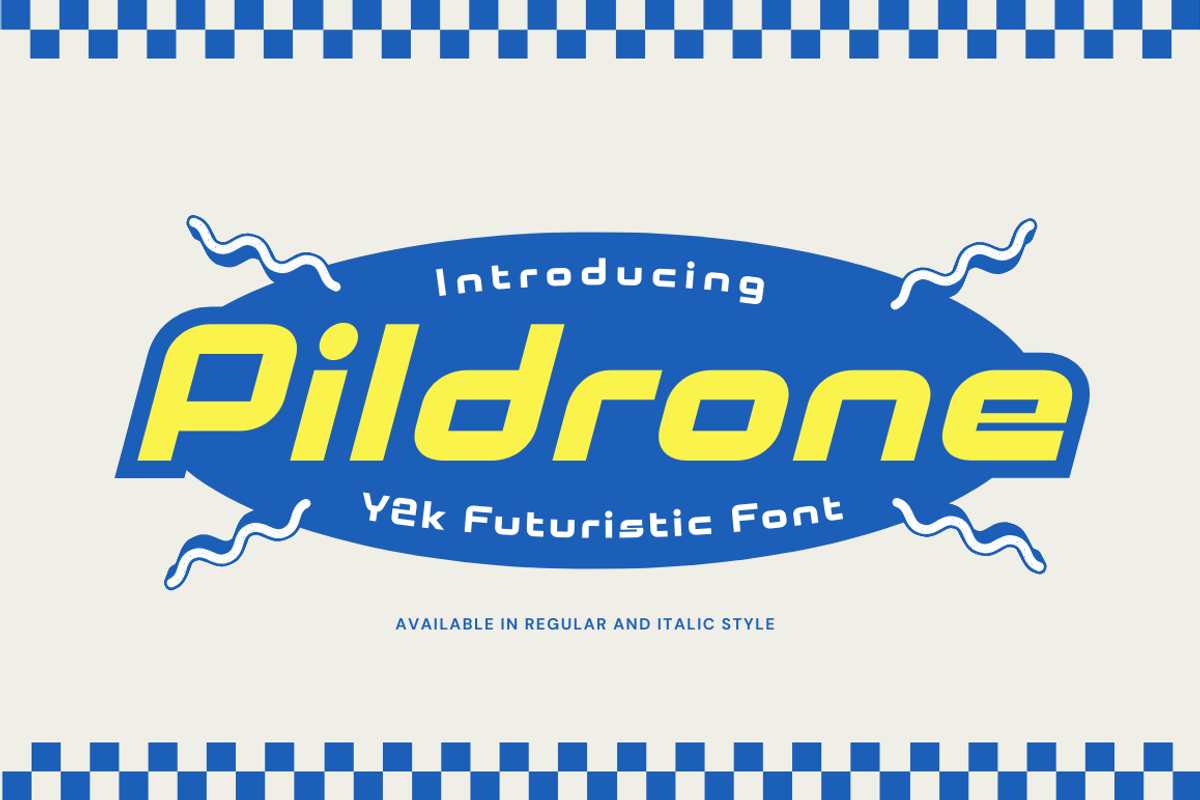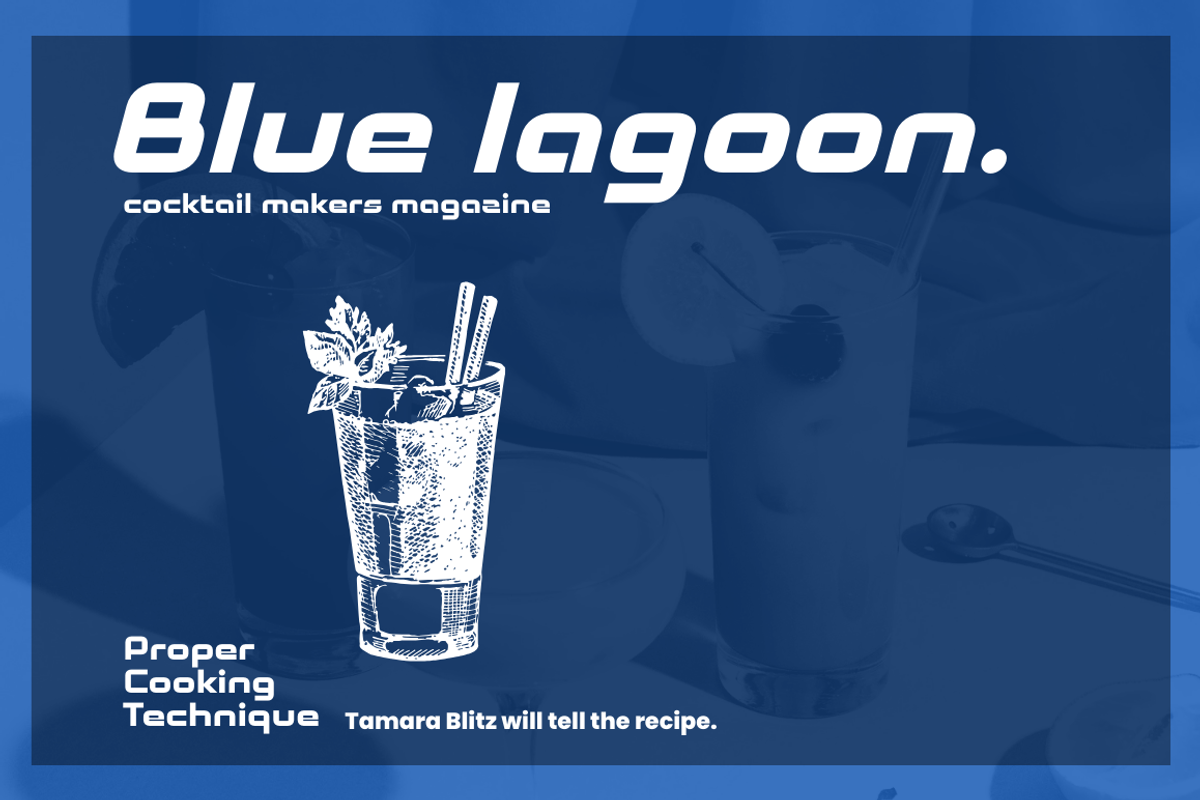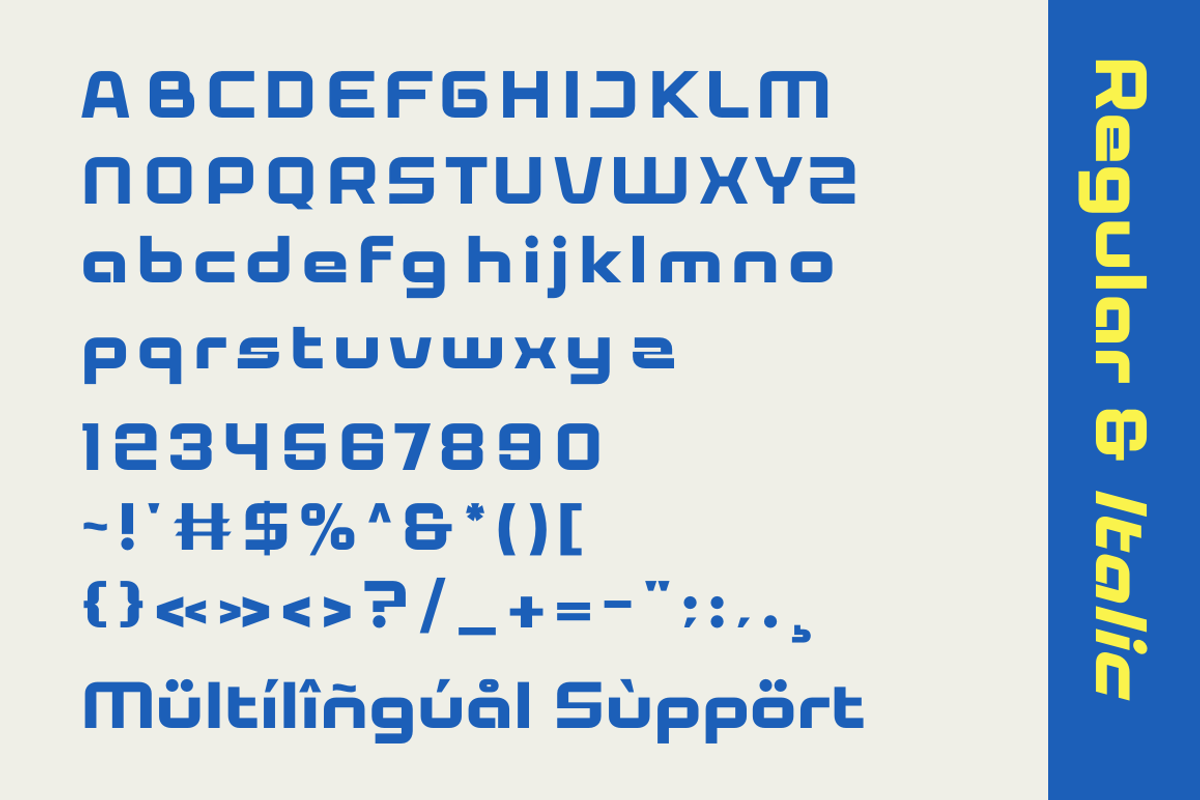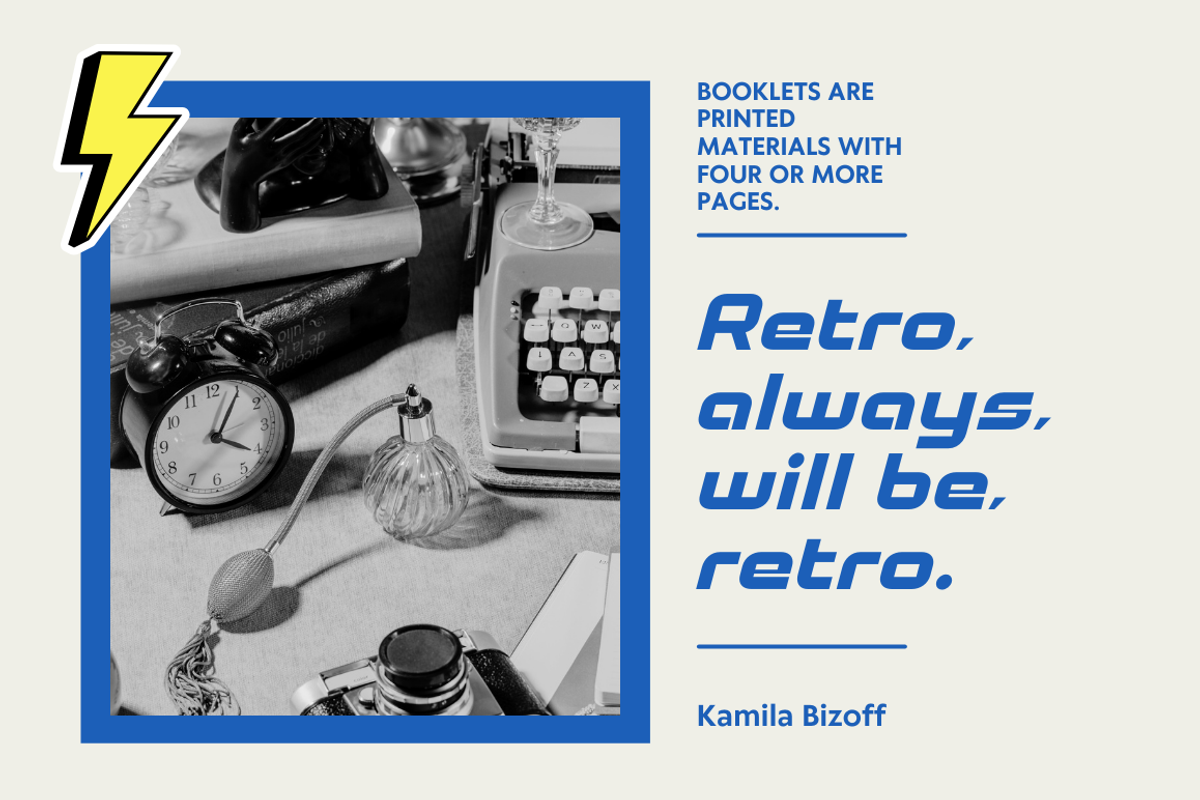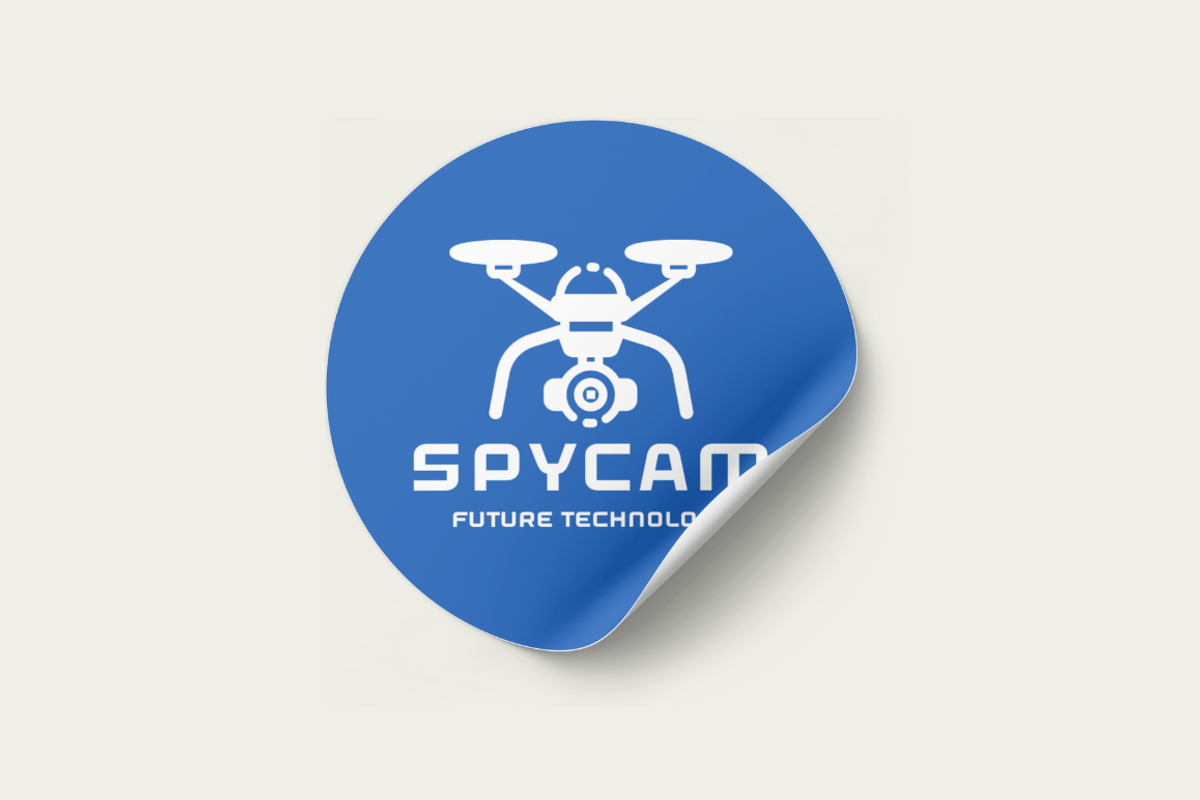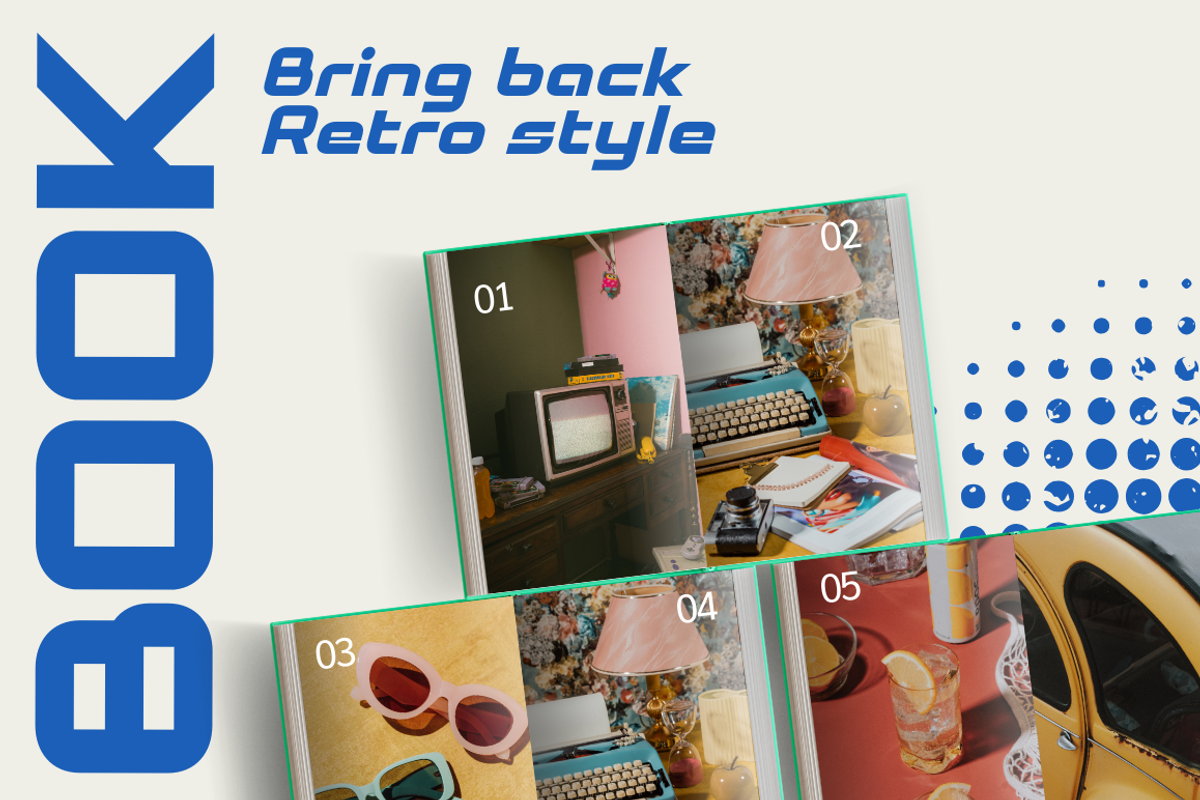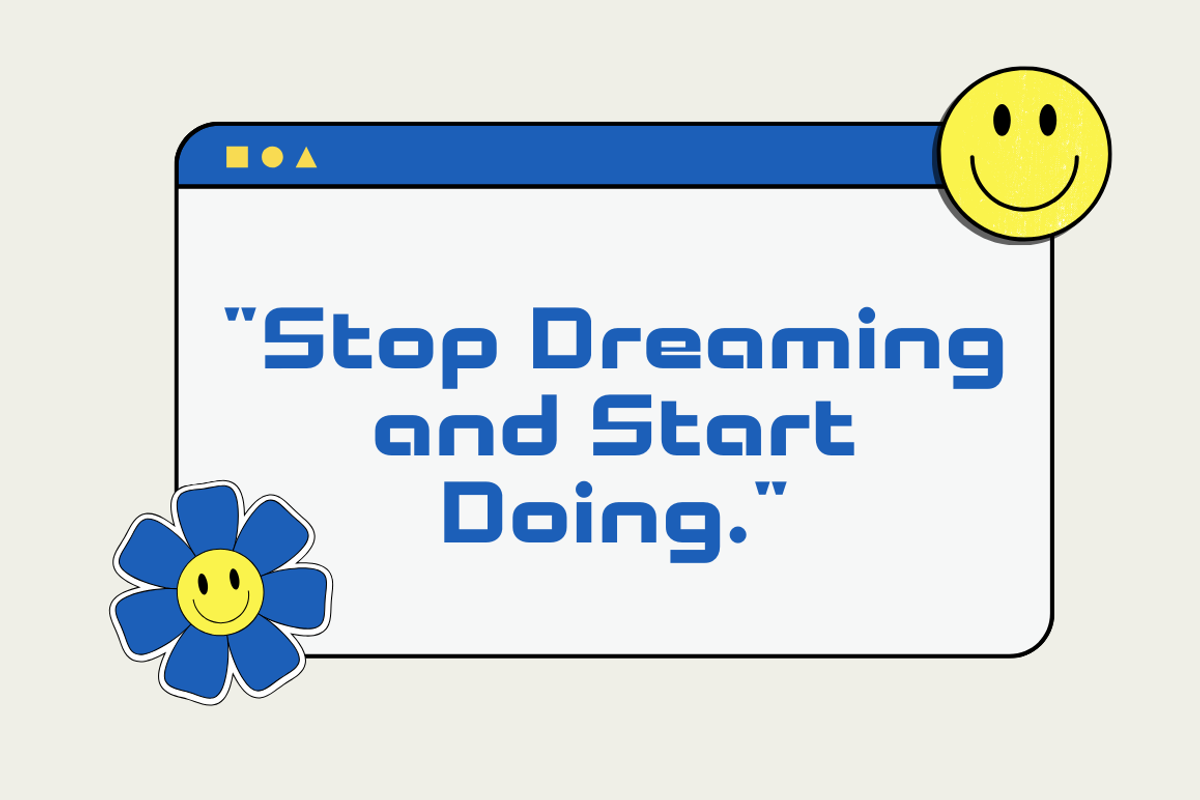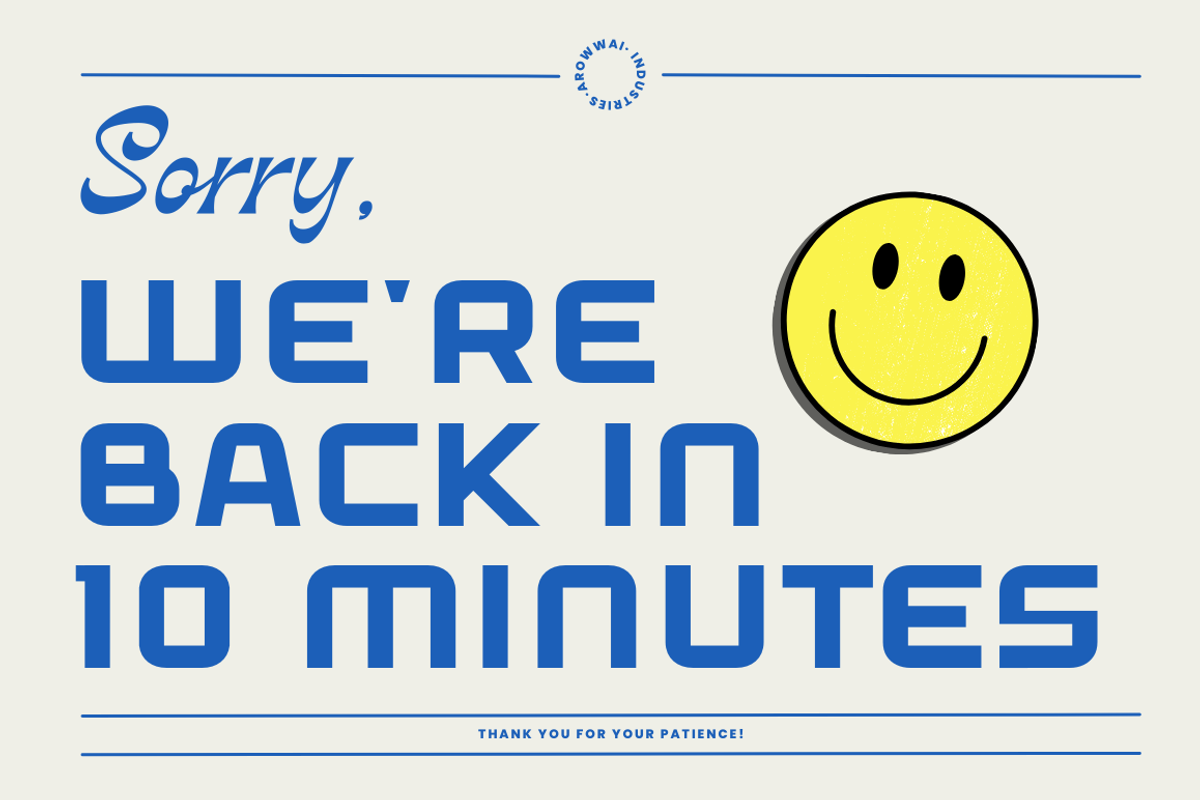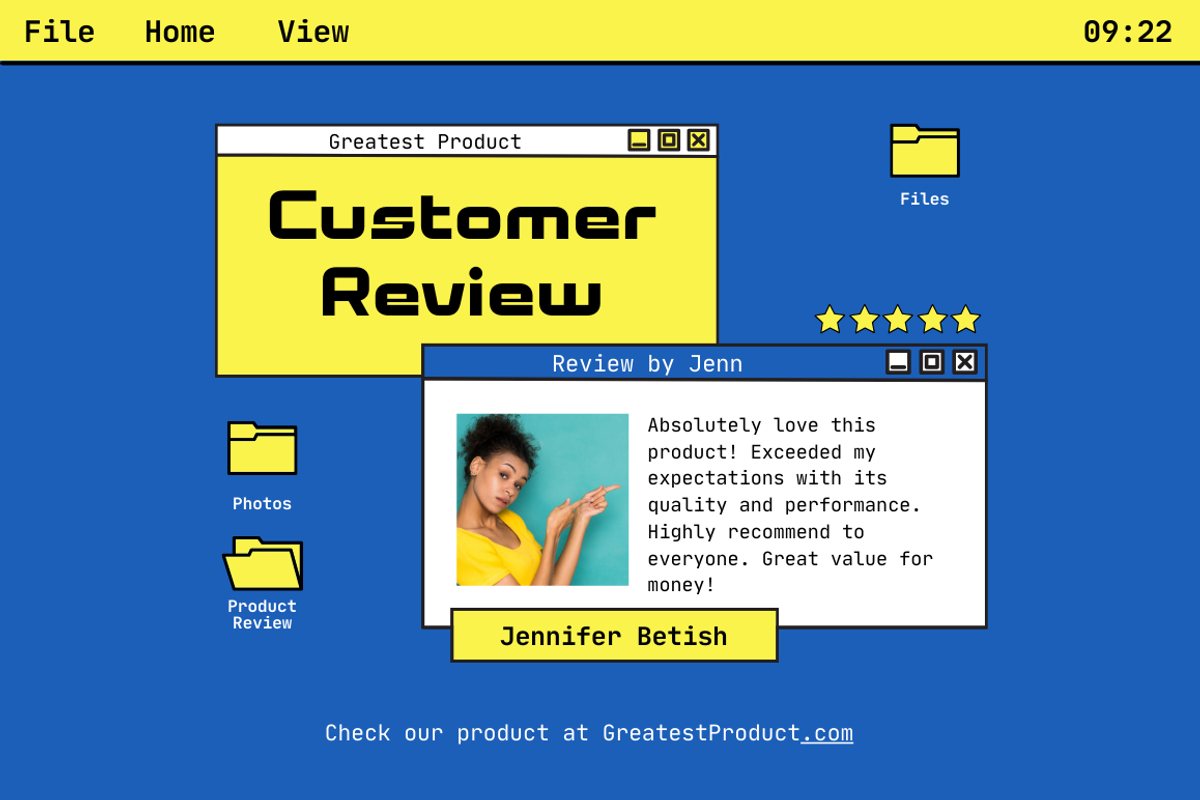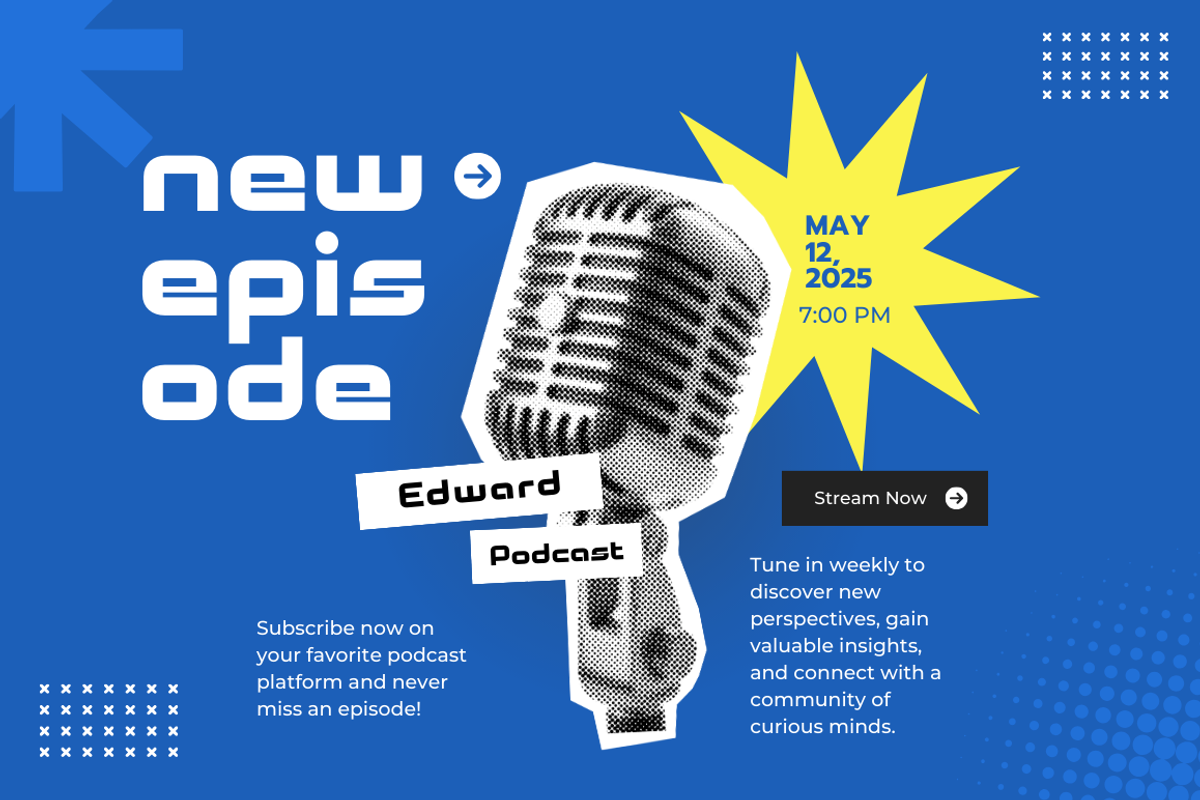
Pildrone - Y2k Futuristic Font
Introducing "Pildrone," a cutting-edge Y2K futuristic font designed to elevate your creative projects. This font captures the sleek and innovative spirit of the early 2000s, perfect for technology-themed designs, sci-fi visuals, and modern branding. Available in two versatile styles—Regular and Italic—"Pildrone" offers the flexibility to make your text stand out with a unique, futuristic touch. Add a bold, forward-thinking edge to your work with "Pildrone."
- Regular & Italic Version